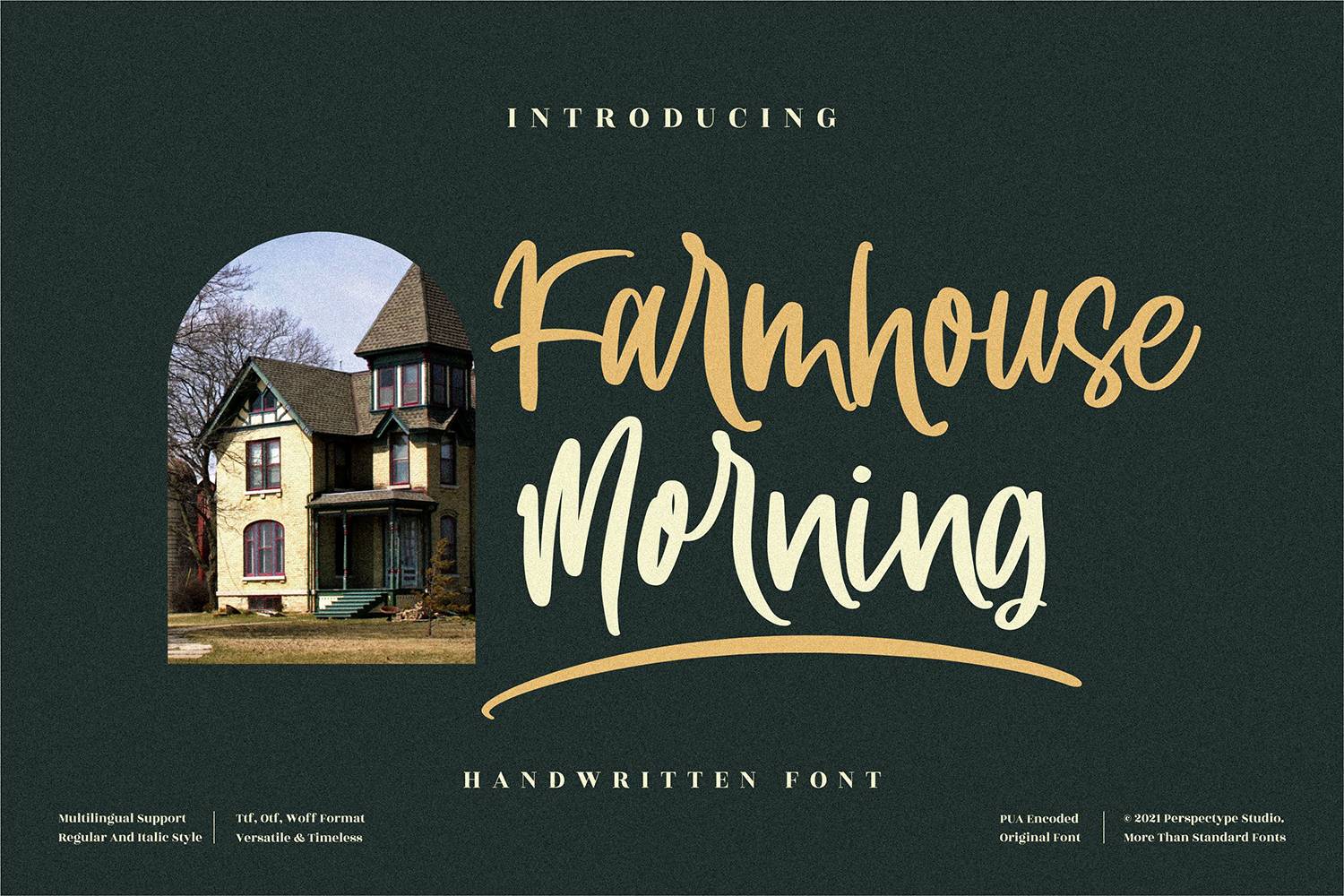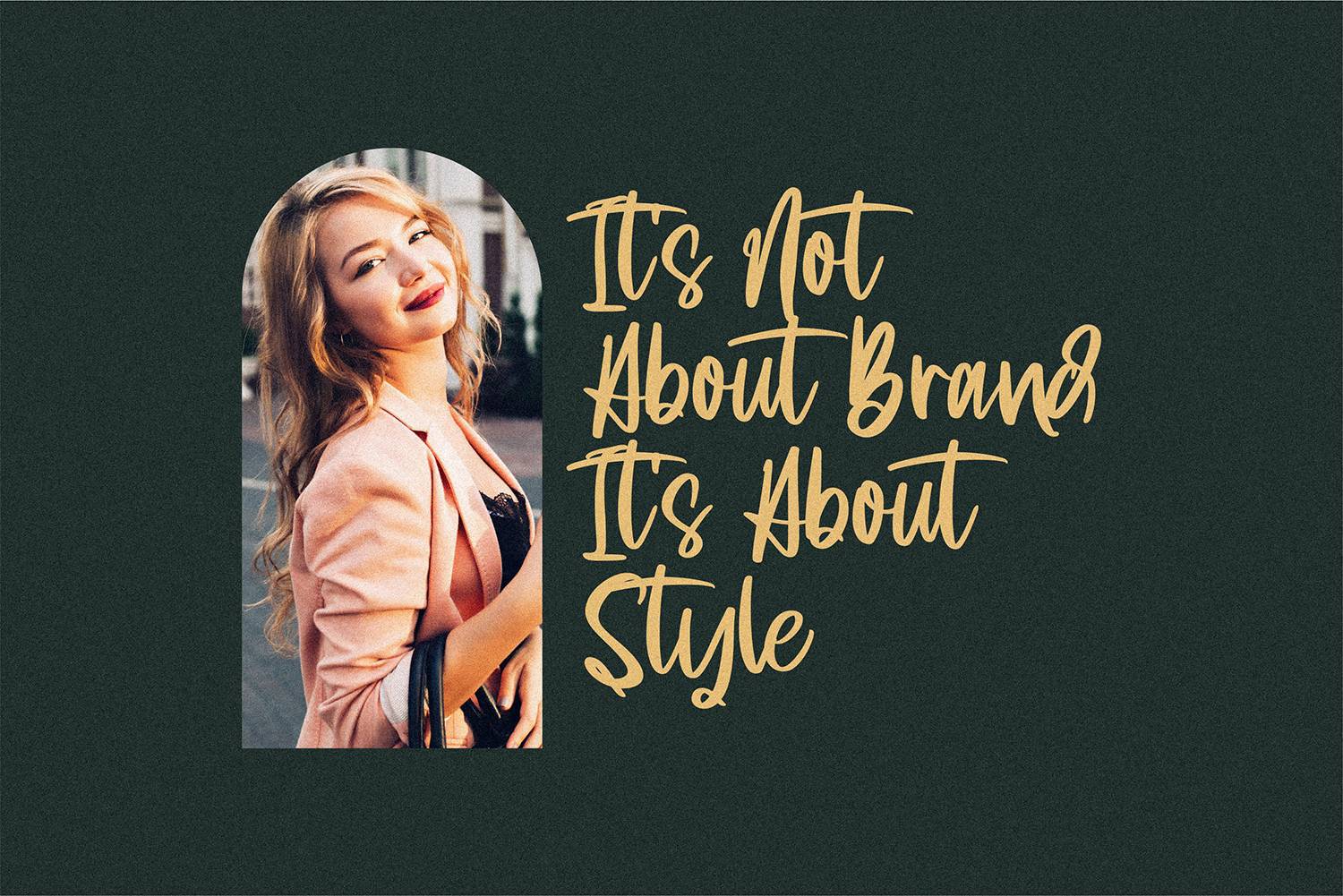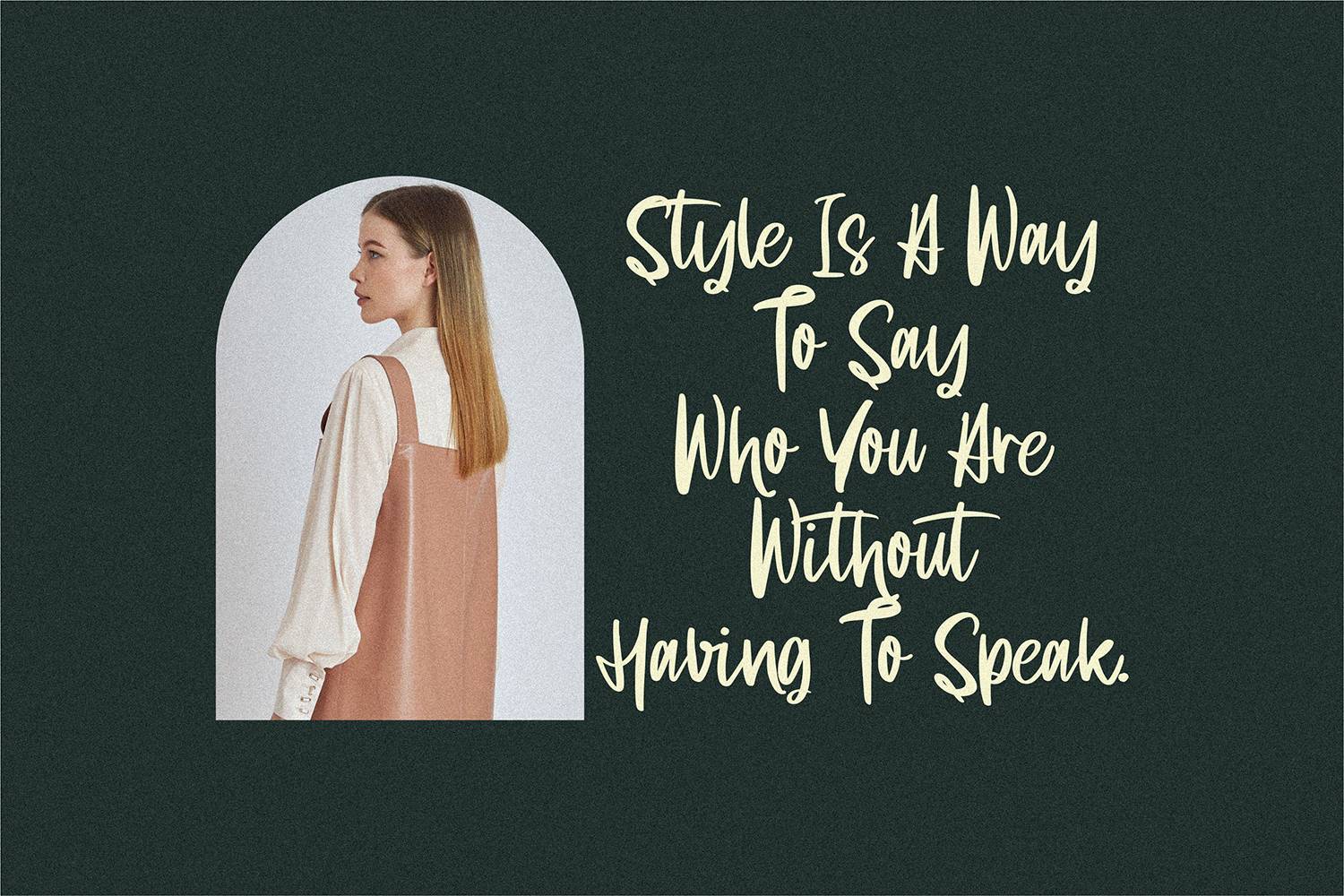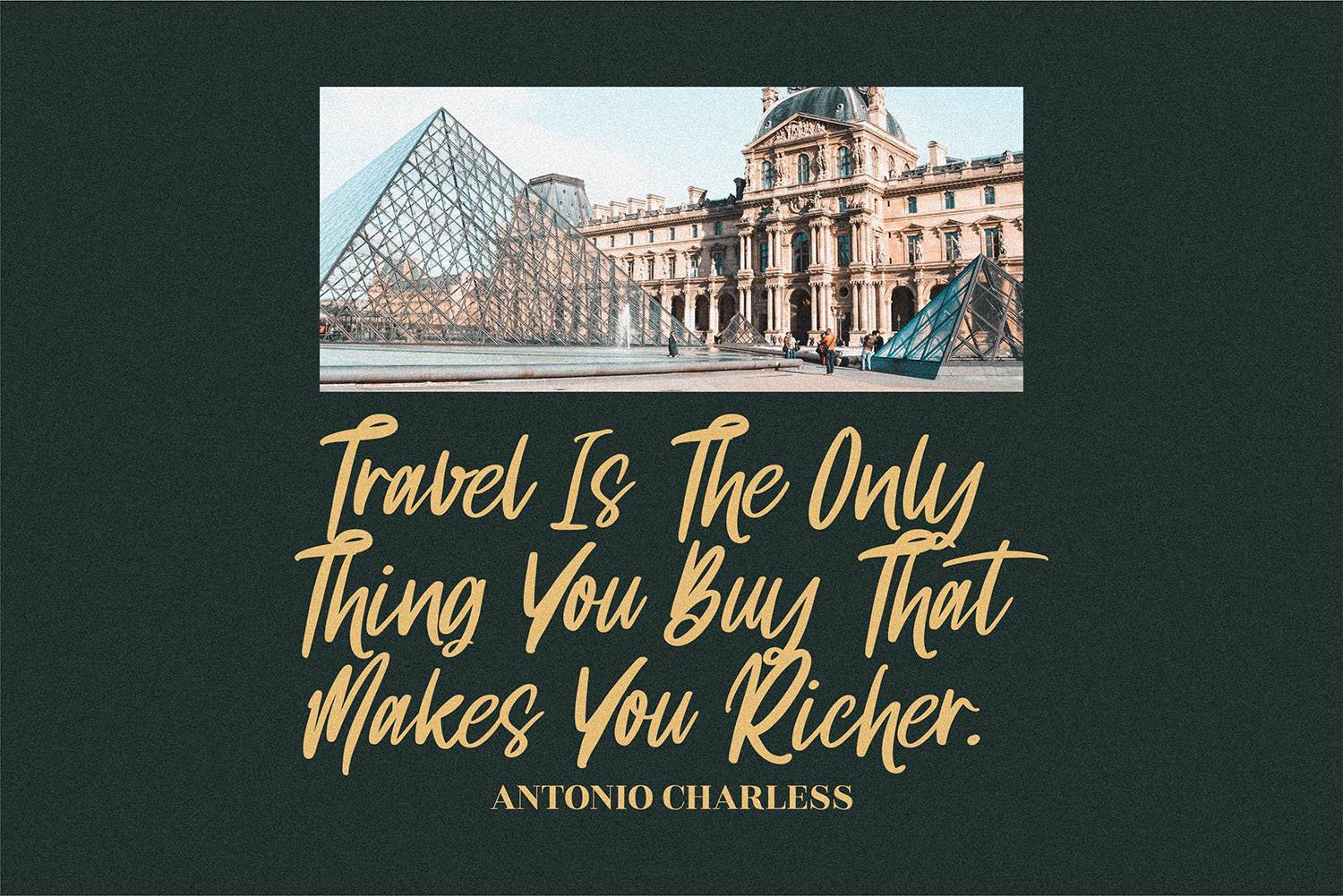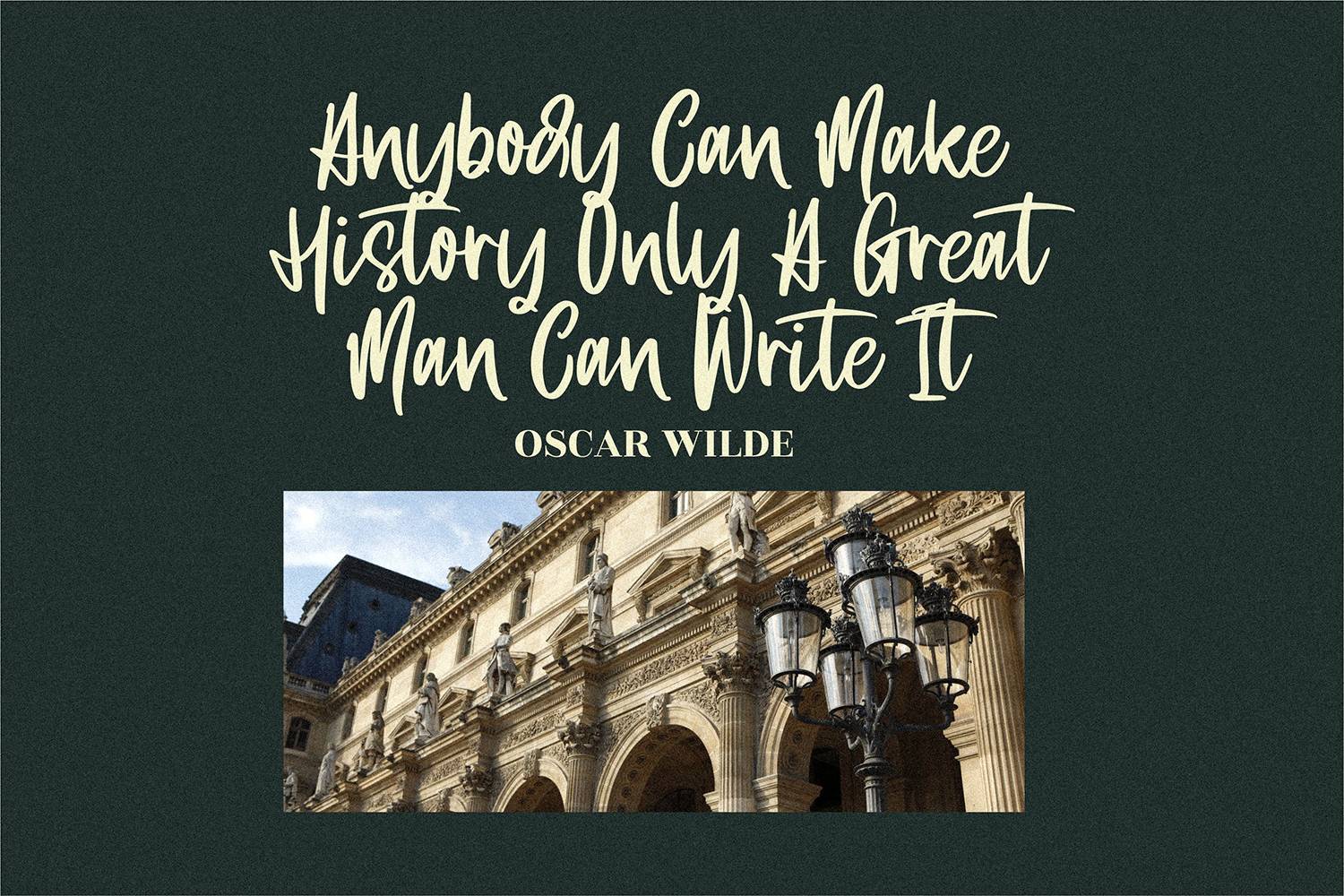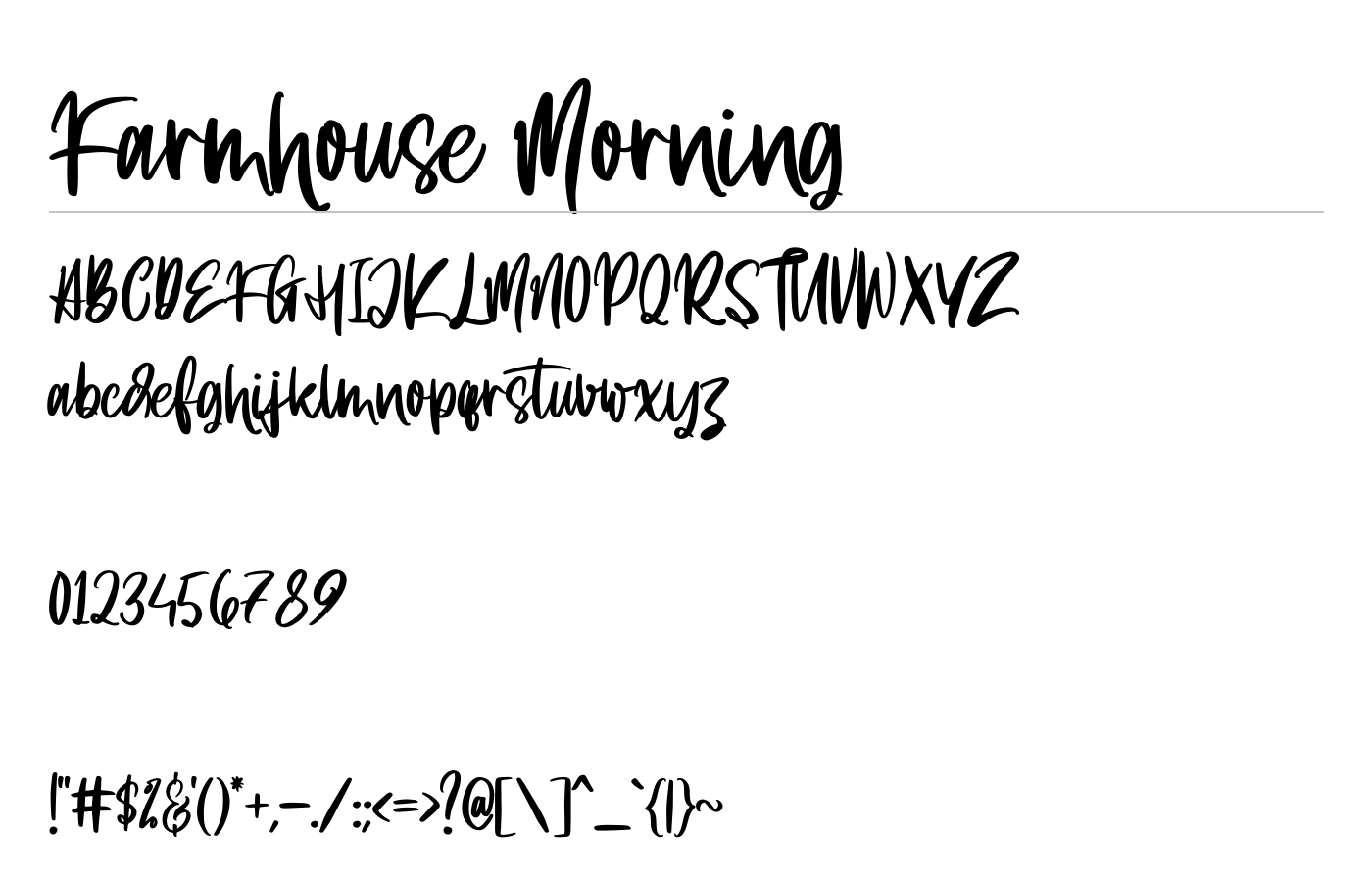
Farmhouse Morning is a lively handwritten script font with a bold weight and natural, flowing strokes that give it an organic, casual feel. Its tall x-height and slightly irregular letterforms make it perfect for creating warm, inviting designs that feel personal and approachable. This font works wonderfully for branding, packaging, and headlines where a friendly, handcrafted look is desired.
Farmhouse Morning Font
About Farmhouse Morning Font